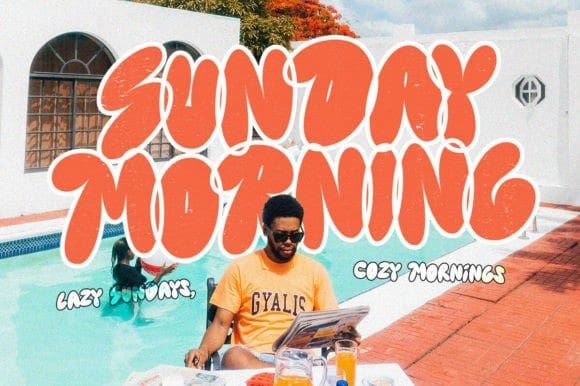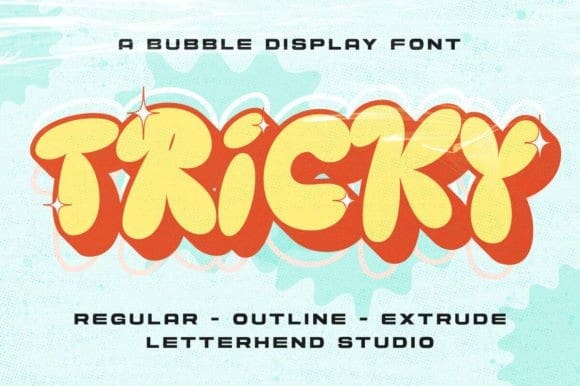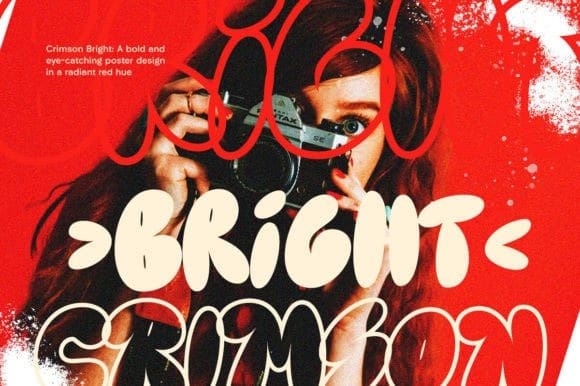
Tricky Display Font
Tricky Display Font,  this fun and whimsical font with graffiti street art style. Its rounded, bubbly letters give it a friendly and approachable feel, while its cartoon-like appearance adds a touch of humor and playfulness. Use Kinder Stone to create logos, posters, and other designs that need a dash of personality and fun.